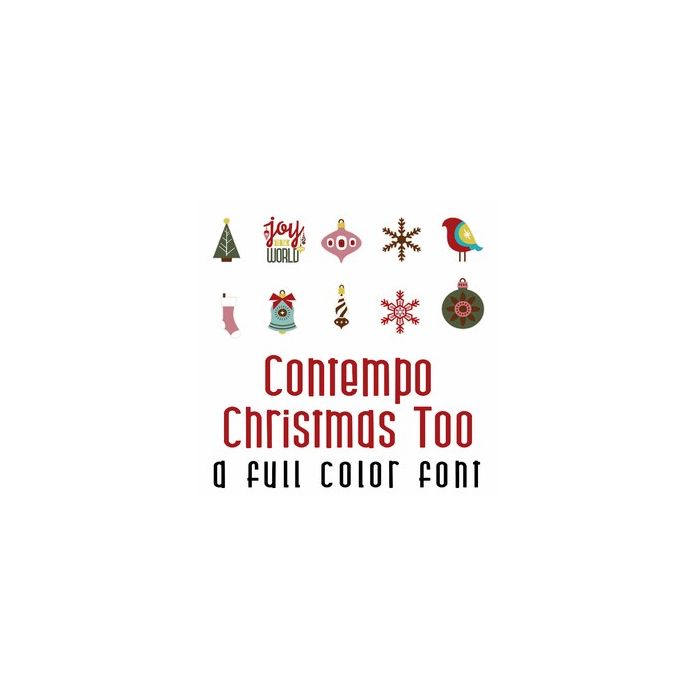
This fun full-color doodlebat font features 26 contemporary Christmas images. Perfect for cards, crafts, gifts, decor, scrapbook pages, planner stickers, and more!